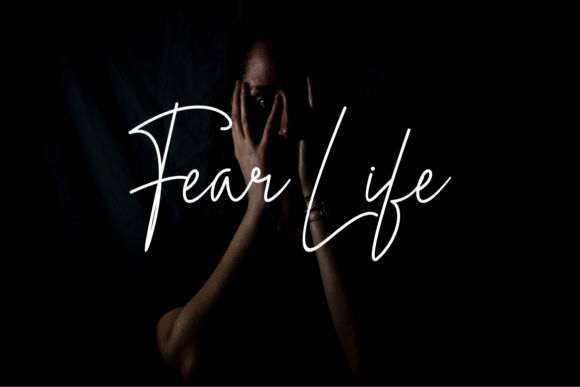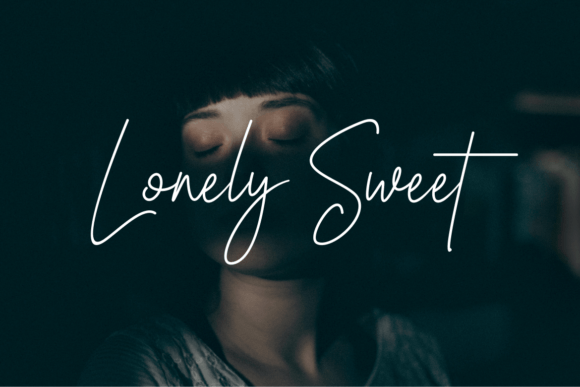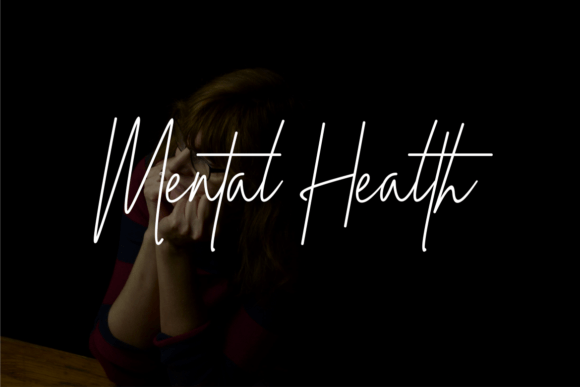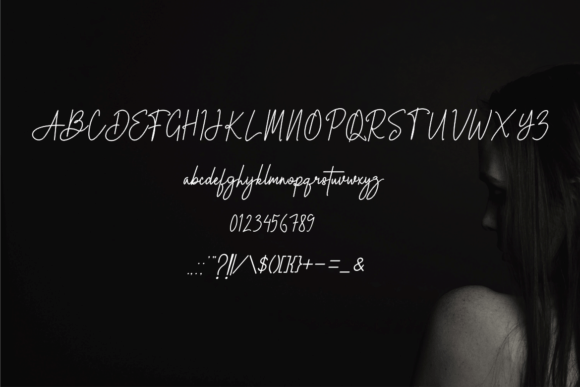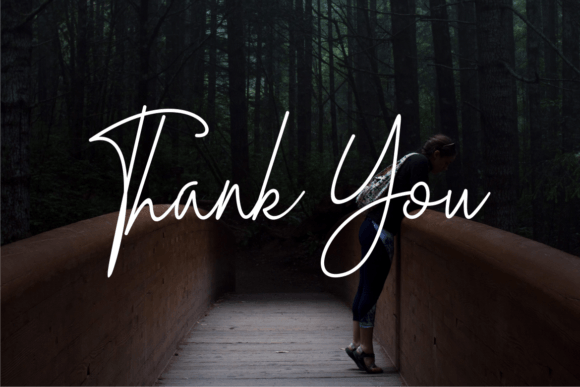
Introduction to Naerolobist Font
Naerolobist is a cool and modern handwritten signature font.
Key Features of Naerolobist Font
Why Choose Naerolobist Font?